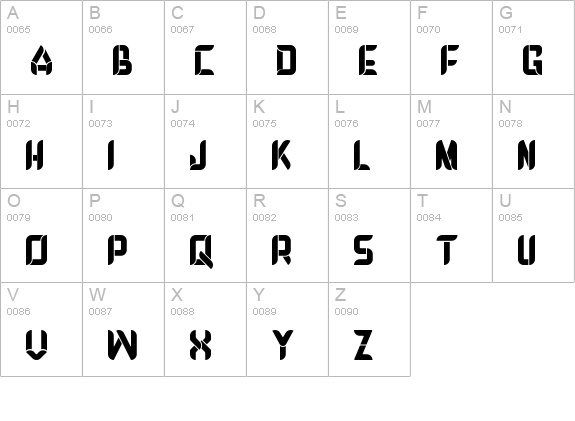
DEBROSEE Font Details
DEBROSEE is a free for personal use font in the Modern > Stencil category, designed by CBRTEXT Studio. It has been downloaded 331 times and is available for Windows, Mac and Linux.
DEBROSEE font is a stunning display typeface that exudes elegance and creativity. Its unique and intricate design makes it a perfect choice for projects that require a touch of sophistication and style. With its sharp edges and bold strokes, DEBROSEE font demands attention and leaves a lasting impression on any design it is used in.
This font is not only visually captivating but also versatile, making it suitable for various design purposes such as logos, branding, headlines, and more. The sleek and modern aesthetic of DEBROSEE font sets it apart from other typefaces, making it a standout choice for designers looking to make a statement.